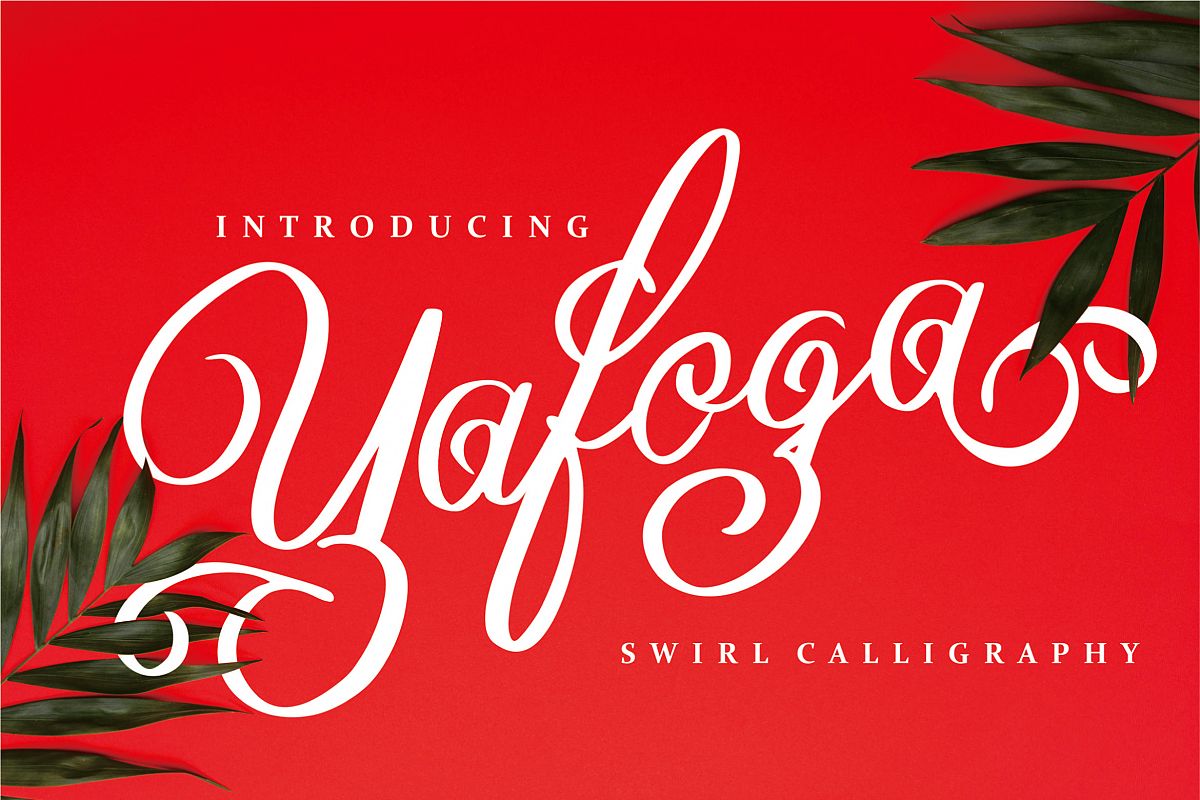
Yafoga - Swirl Calligraphy
Yafoga
Yafoga - Swirl Calligraphy
So beautiful on invitation like greeting cards, branding materials, business cards, quotes, posters, and more!